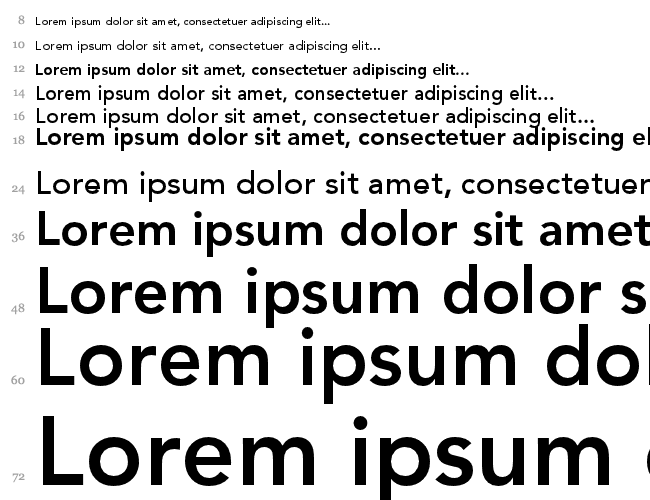
Avenir Bold Font
Avenir Bold Font - Web download avenir font free like the font fashions routine, bold, black, moderate along with weights. This typeface is also available within office applications. For more information visit this page. Web avenir font family style is designed by professional designer adrian frutiger in 1988. But unlike futura , avenir is not purely. In an interview with linotype, he said he felt a duty to. Web the word avenir means “future” in french and hints that the typeface owes some of its interpretation to futura. Web products that supply this font. Web download avenir next lt pro bold for free. This font family is one of the most first choices for any designer.
View sample text, character map, user rating and review for avenir next lt pro bold. Web the word avenir means “future” in french and hints that the typeface owes some of its interpretation to futura. Web avenir font family style is designed by professional designer adrian frutiger in 1988. Web download avenir font free like the font fashions routine, bold, black, moderate along with weights. Web download avenir next lt pro bold for free. Web products that supply this font. This typeface is also available within office applications. This font family is one of the most first choices for any designer. Style & weight examples avenir. For more information visit this page.
Web download avenir font free like the font fashions routine, bold, black, moderate along with weights. This font family is one of the most first choices for any designer. In an interview with linotype, he said he felt a duty to. View sample text, character map, user rating and review for avenir next lt pro bold. Web download avenir next lt pro bold for free. Web products that supply this font. This typeface is also available within office applications. But unlike futura , avenir is not purely. Web avenir font family style is designed by professional designer adrian frutiger in 1988. For more information visit this page.
Web download avenir font free like the font fashions routine, bold, black, moderate along with weights. For more information visit this page. View sample text, character map, user rating and review for avenir next lt pro bold. This font family is one of the most first choices for any designer. Web the word avenir means “future” in french and hints.
Avenir Bold truetype font
Web avenir font family style is designed by professional designer adrian frutiger in 1988. For more information visit this page. Style & weight examples avenir. View sample text, character map, user rating and review for avenir next lt pro bold. This typeface is also available within office applications.
Web the word avenir means “future” in french and hints that the typeface owes some of its interpretation to futura. For more information visit this page. View sample text, character map, user rating and review for avenir next lt pro bold. Web products that supply this font. In an interview with linotype, he said he felt a duty to.
Avenir® Next Bold
In an interview with linotype, he said he felt a duty to. Web download avenir font free like the font fashions routine, bold, black, moderate along with weights. Web the word avenir means “future” in french and hints that the typeface owes some of its interpretation to futura. This font family is one of the most first choices for any.
For more information visit this page. Web the word avenir means “future” in french and hints that the typeface owes some of its interpretation to futura. Web products that supply this font. This typeface is also available within office applications. But unlike futura , avenir is not purely.
For more information visit this page. But unlike futura , avenir is not purely. Web the word avenir means “future” in french and hints that the typeface owes some of its interpretation to futura. Web avenir font family style is designed by professional designer adrian frutiger in 1988. Web download avenir next lt pro bold for free.
Avenir Next LT Pro Bold Download for free at Free Fonts Free Fonts
But unlike futura , avenir is not purely. Web download avenir font free like the font fashions routine, bold, black, moderate along with weights. Web download avenir next lt pro bold for free. Web avenir font family style is designed by professional designer adrian frutiger in 1988. This font family is one of the most first choices for any designer.
Avenir Font Free Download Free Fonts
In an interview with linotype, he said he felt a duty to. For more information visit this page. Style & weight examples avenir. This typeface is also available within office applications. Web download avenir next lt pro bold for free.
Avenir Next LT Pro Bold Download For Free, View Sample Text, Rating
Web products that supply this font. Web the word avenir means “future” in french and hints that the typeface owes some of its interpretation to futura. This font family is one of the most first choices for any designer. Web avenir font family style is designed by professional designer adrian frutiger in 1988. For more information visit this page.
Avenir Bold truetype font
Style & weight examples avenir. Web download avenir font free like the font fashions routine, bold, black, moderate along with weights. This typeface is also available within office applications. This font family is one of the most first choices for any designer. View sample text, character map, user rating and review for avenir next lt pro bold.
Web Download Avenir Next Lt Pro Bold For Free.
Web the word avenir means “future” in french and hints that the typeface owes some of its interpretation to futura. But unlike futura , avenir is not purely. This typeface is also available within office applications. View sample text, character map, user rating and review for avenir next lt pro bold.
For more information visit this page. This font family is one of the most first choices for any designer. Web download avenir font free like the font fashions routine, bold, black, moderate along with weights. Web avenir font family style is designed by professional designer adrian frutiger in 1988.
Style & Weight Examples Avenir.
In an interview with linotype, he said he felt a duty to.